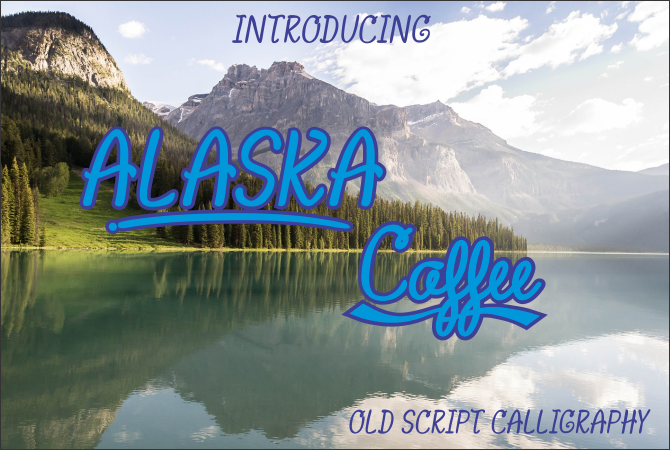
Warm Up Your Designs with the Cozy Alaska Coffee Font
There’s something magical about sipping a steaming cup of coffee on a chilly morning, surrounded by the serene beauty of nature. For designers, this feeling can be replicated in their work by using the right fonts. And, for those looking to add a touch of warmth and coziness to their designs, the Alaska Coffee Font is the perfect companion.
This stunning script font is designed to evoke the feeling of natural handwriting, making it perfect for creating homey and friendly designs. With its nice weight and character set, the Alaska Coffee Font is a valuable addition to any designer’s toolkit. Whether you’re working on a branding project, a blog, or a social media campaign, this font is sure to bring a sense of warmth and approachability to your work.
Alaska Coffee Font Key Features
- Unique Characteristics: Alaska Coffee Font features a distinctive, hand-drawn design with a warm and inviting feel, perfect for coffee shops, restaurants, and other establishments that want to create a cozy atmosphere.
- Language Support: Alaska Coffee Font supports a wide range of languages, including Latin, Cyrillic, and Greek, making it a great choice for international applications.
Alaska Coffee Font Review
As a designer, I’m always on the lookout for unique and high-quality fonts to elevate my projects. Alaska Coffee Font is a recent discovery, and I’m excited to share my honest review with you.
- Craftsmanship: The font is beautifully crafted with intricate details that give it a premium feel.
- Legibility: Alaska Coffee Font is surprisingly readable, even at smaller font sizes, making it perfect for body text.
- Customization: The font includes a range of styles and weights, allowing for a high degree of customization to suit your project’s needs.
- Limited Expressiveness: While the font is great for body text, it may not be the best choice for headings or titles that require more emphasis.
- Compatibility Issues: Some users have reported compatibility issues with certain operating systems, so be sure to test thoroughly before using it in a production environment.
Overall, Alaska Coffee Font is a solid addition to any designer’s toolkit. While it may have some limitations, its unique charm and high level of craftsmanship make it a great choice for projects that require a premium feel.
Use the Alaska Coffee Font to add a rustic or vintage touch to your designs.
Pair it with earthy colors and natural textures for a cohesive look.
Use the Alaska Coffee Font for:
Coffee shop branding and marketing materials.
Outdoor and adventure-themed designs.
Rustic or vintage-inspired wedding invitations and decor.
Yes, the Alaska Coffee Font supports a wide range of languages, including Latin, Cyrillic, and Greek scripts. It also includes OpenType features for advanced typography, such as ligatures and swashes, to enhance your designs.